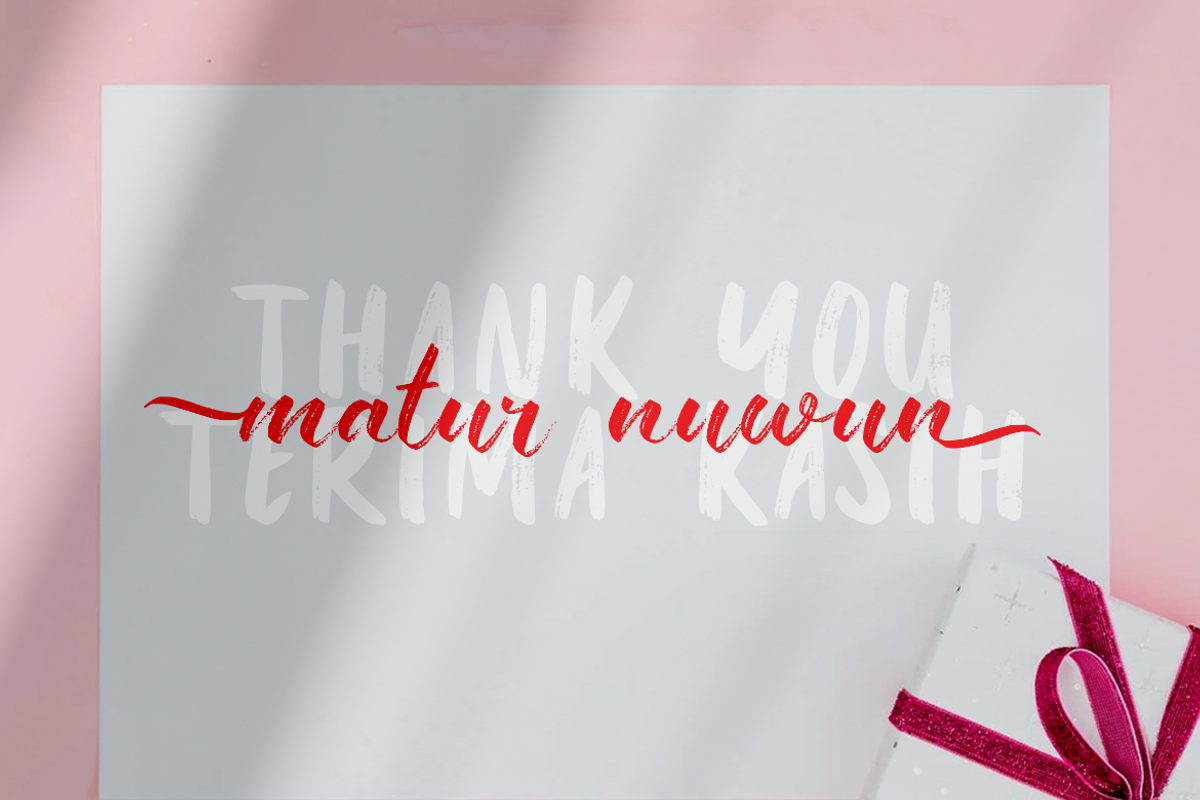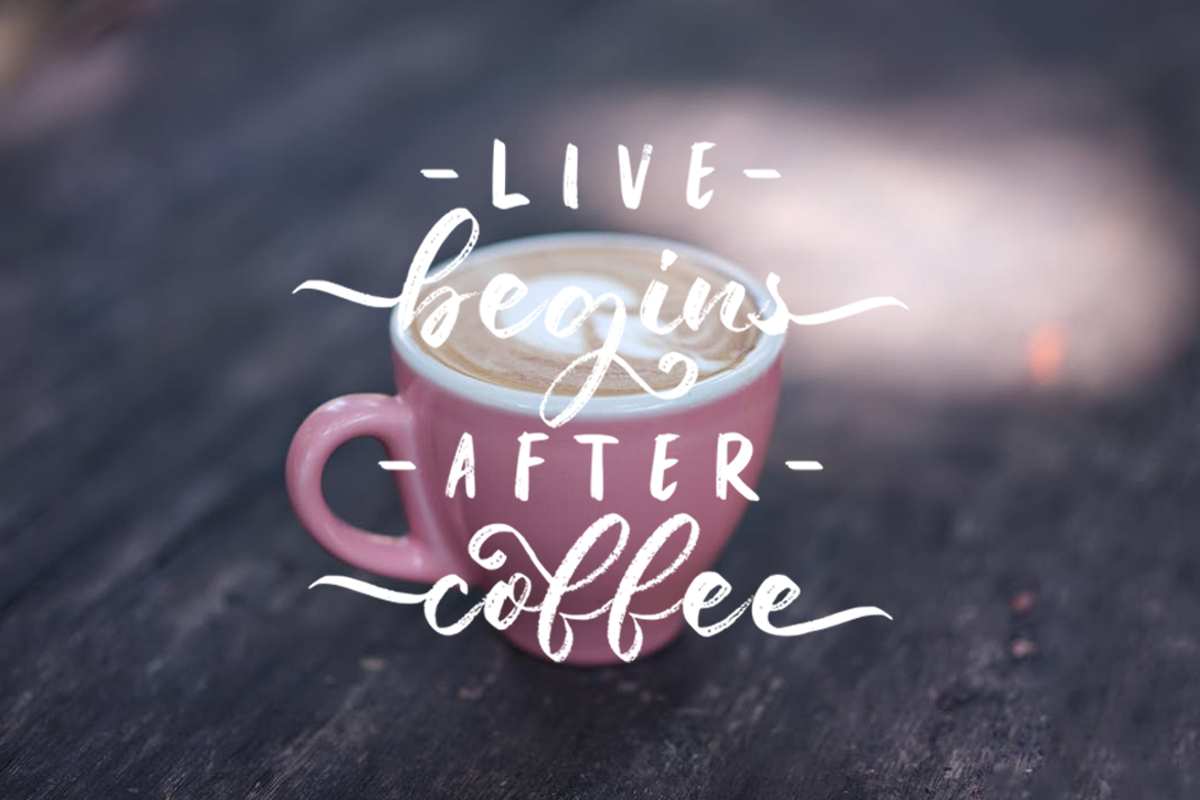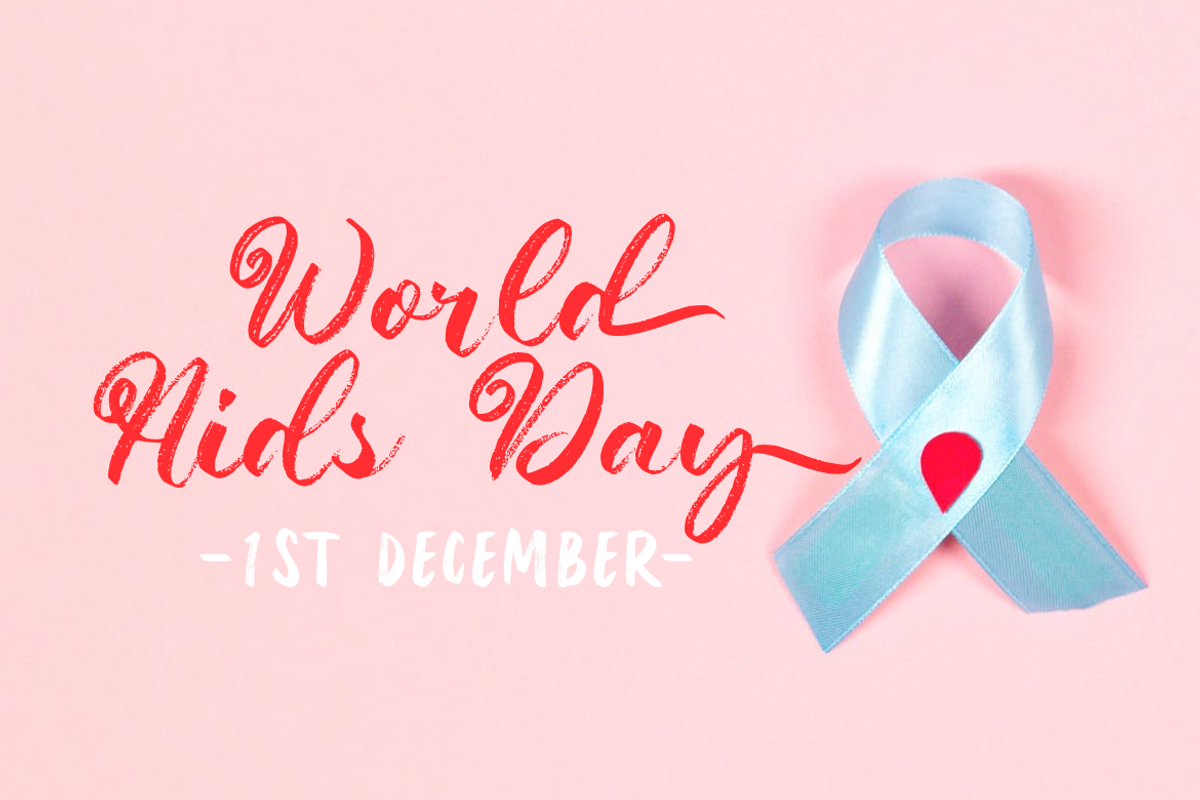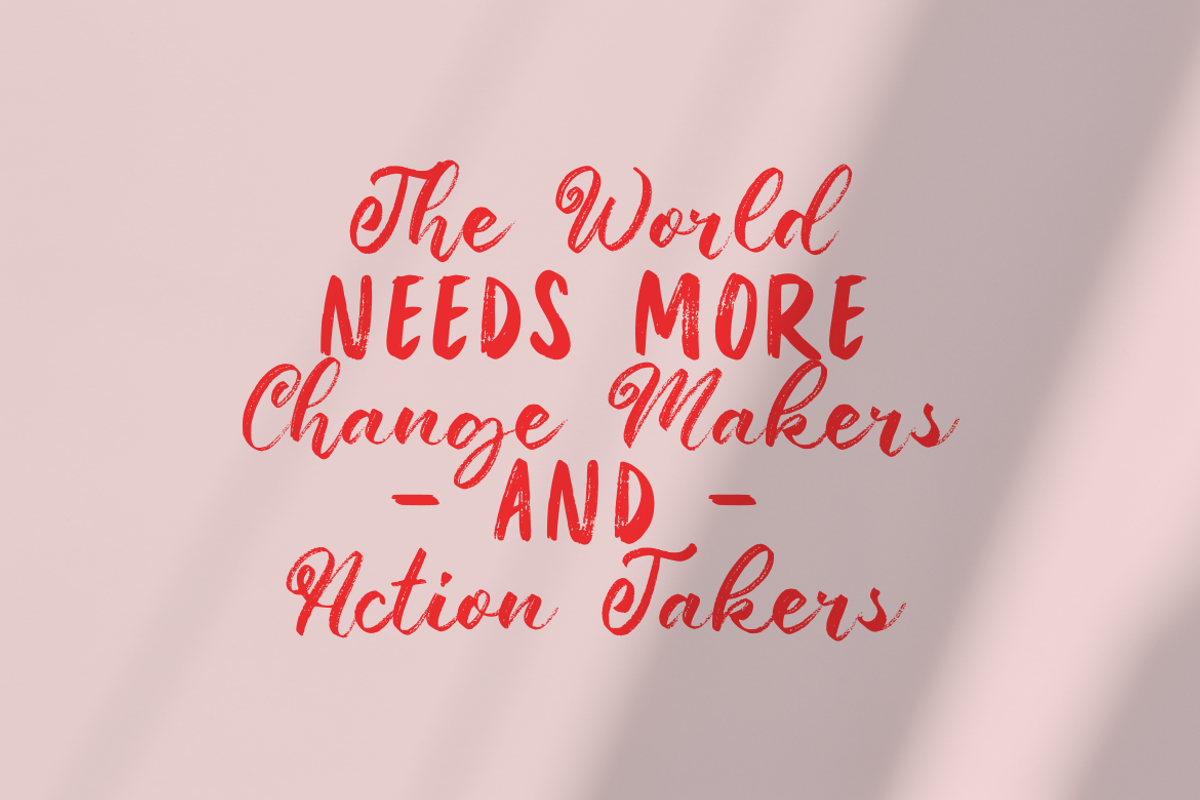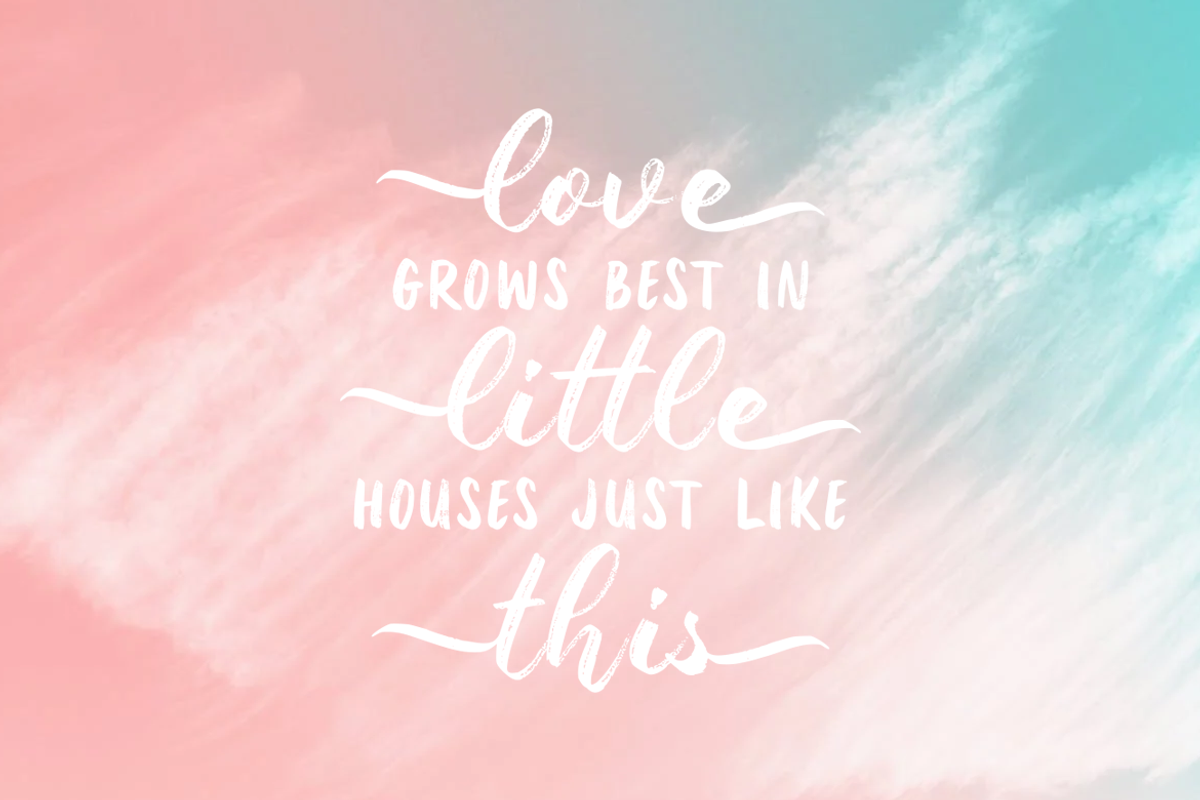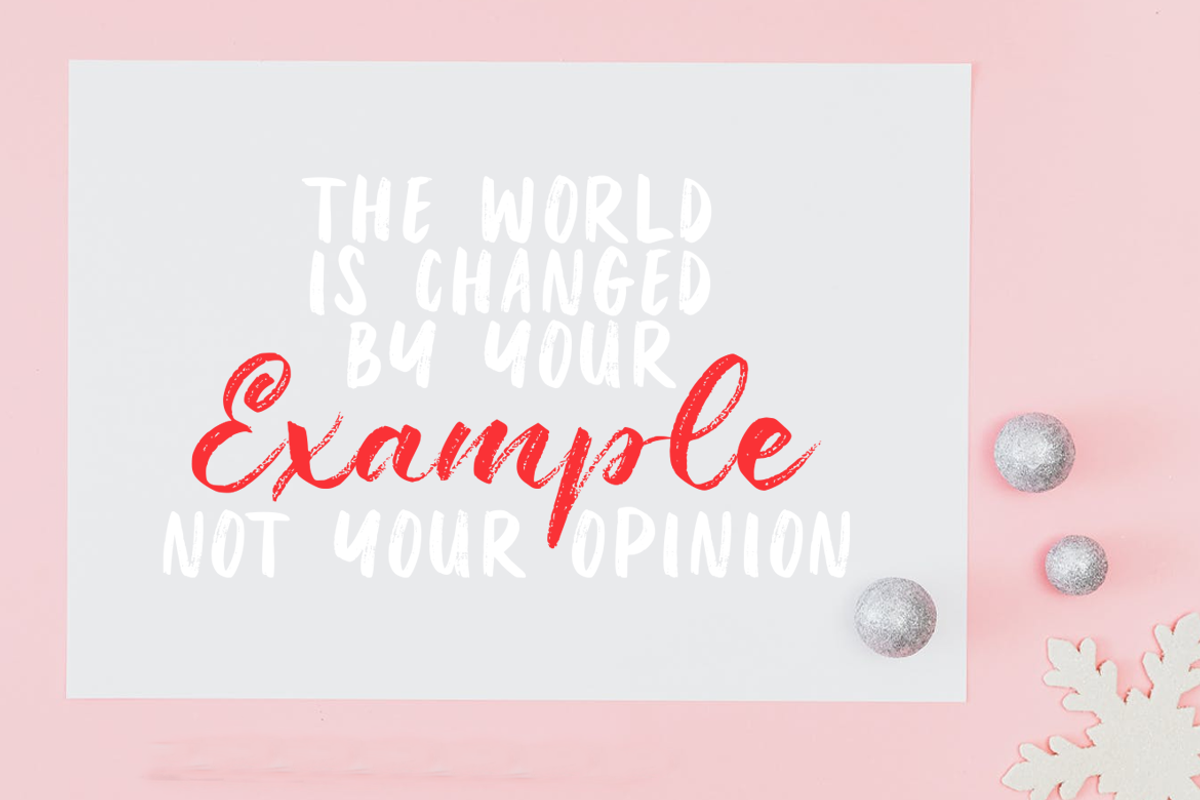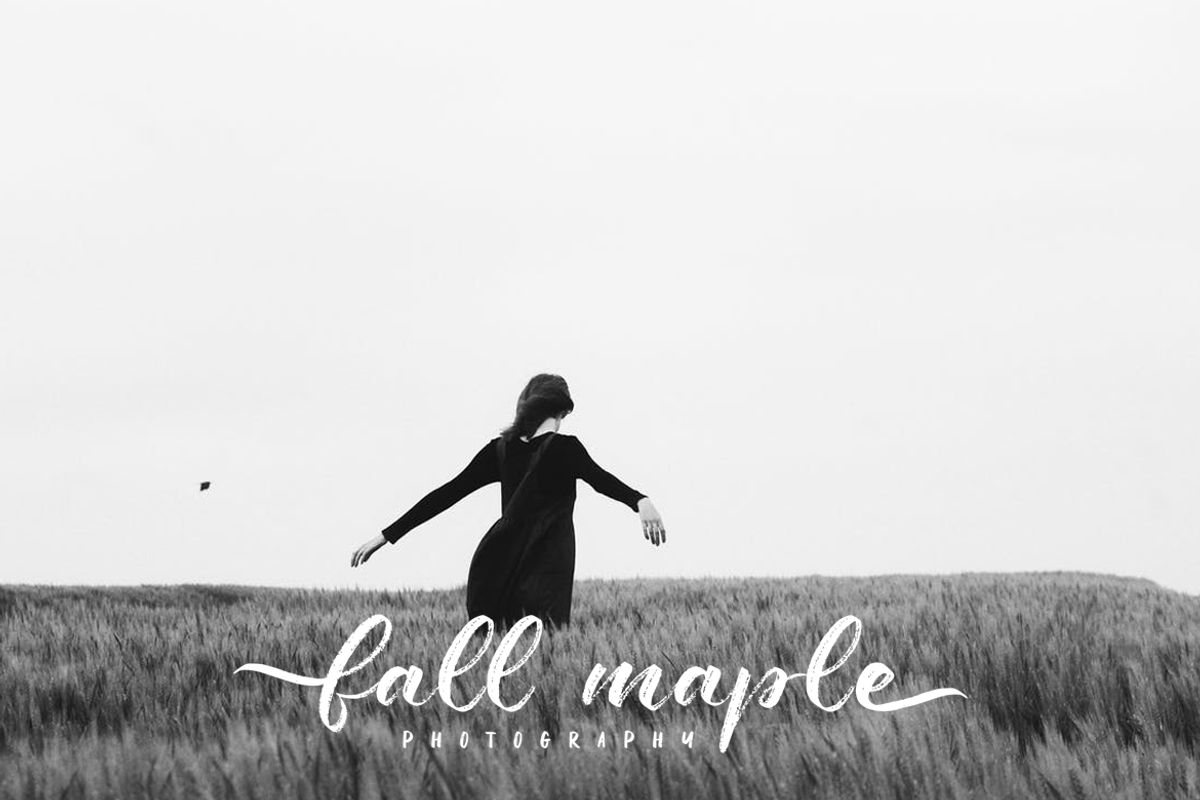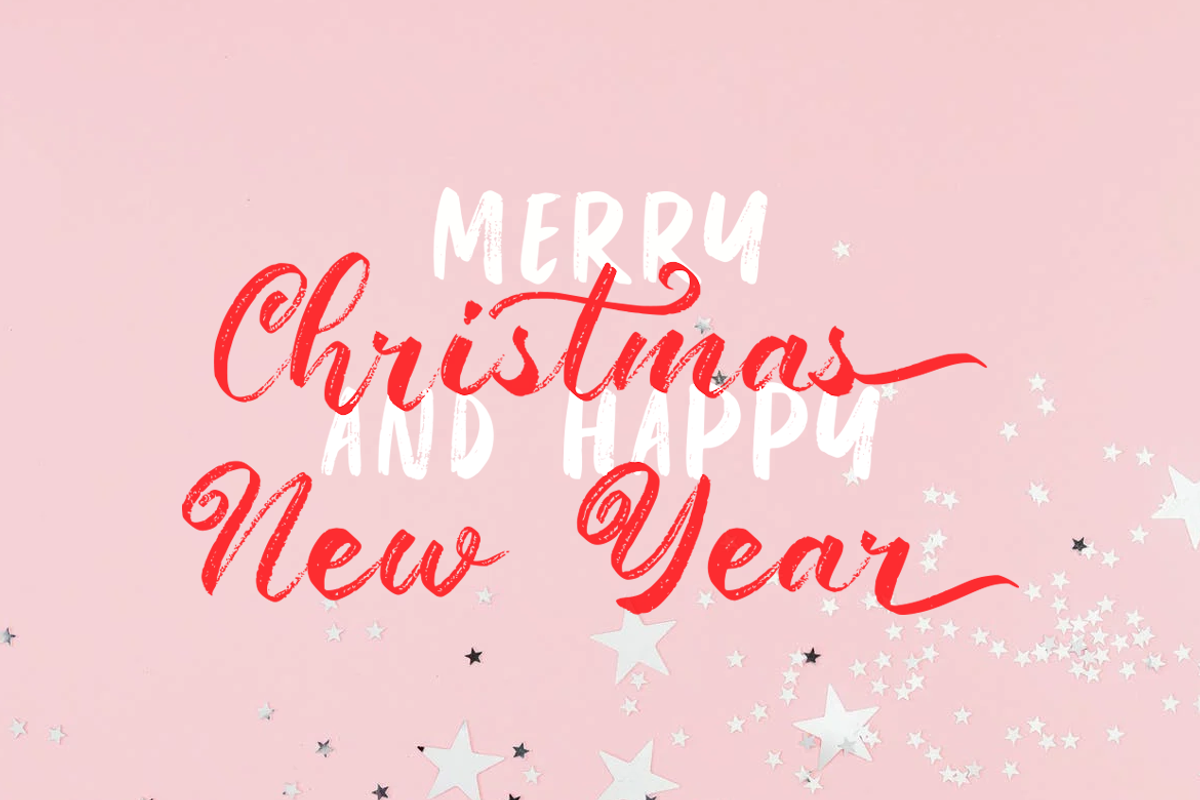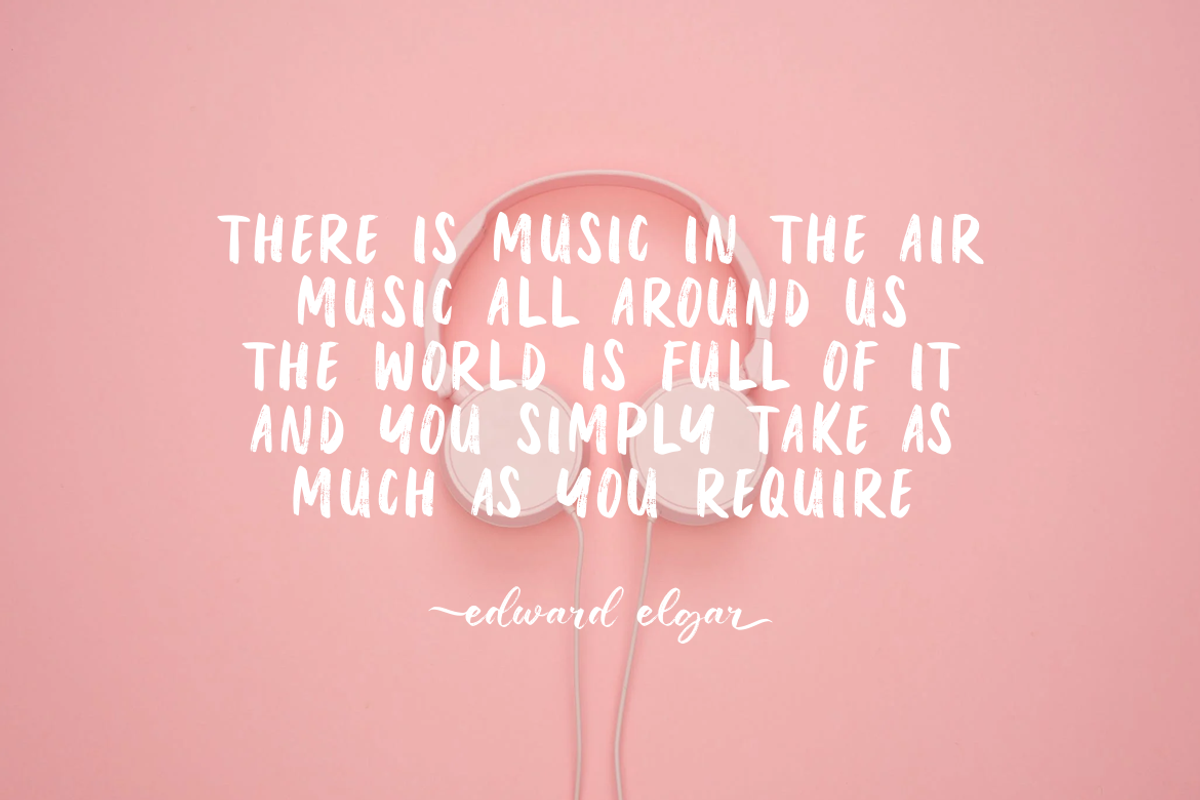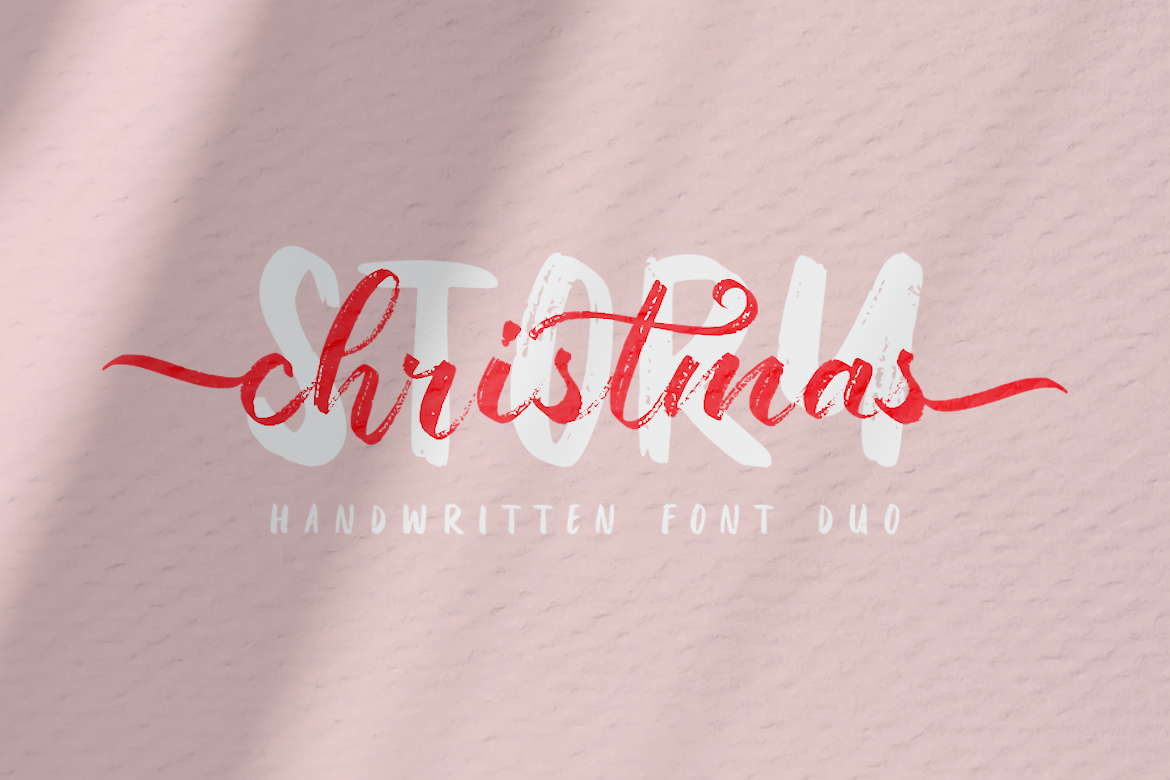
Christmas Story Handwritten Font Duo
Christmas Story is a handwritten font duo. It's perfect for creating beautiful font combinations for all your design projects!
Christmas Story is perfect for all types of your business projects such as: logo design, business cards, greeting cards, magazines, newspapers, social media designs, watermarks and many more.